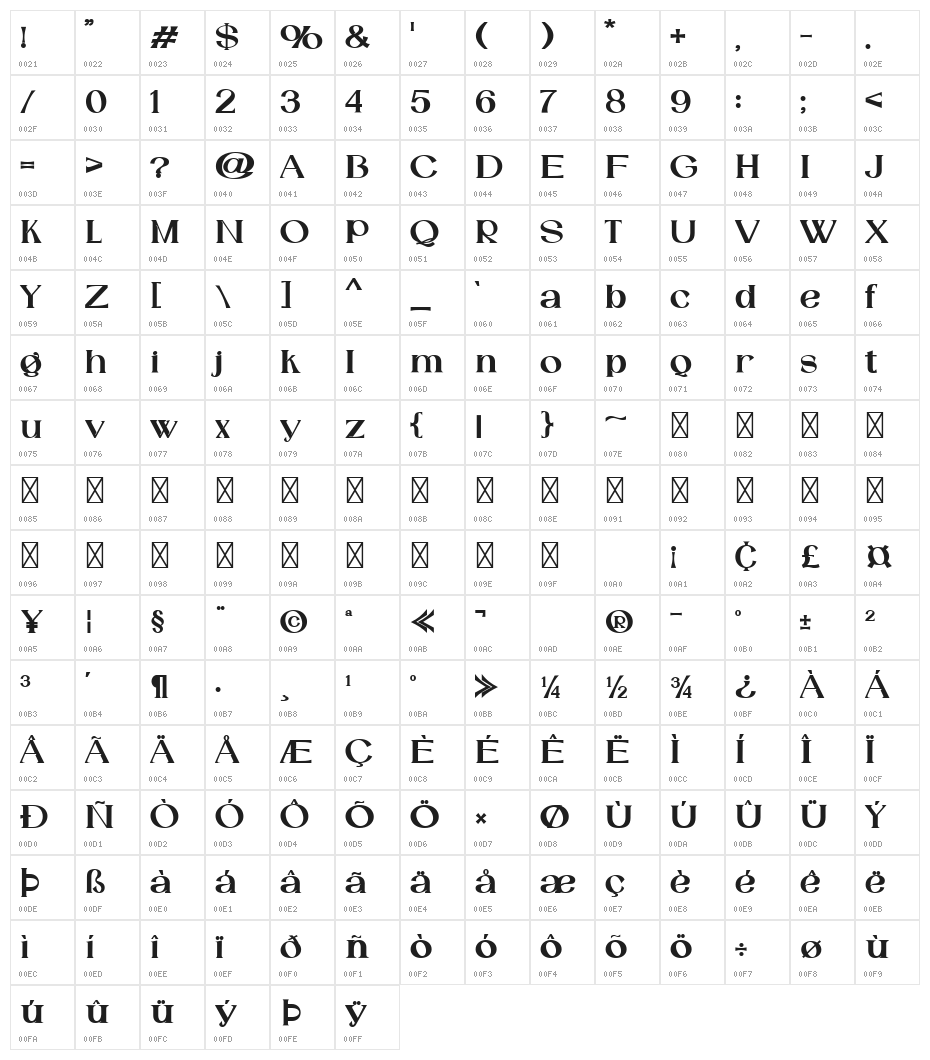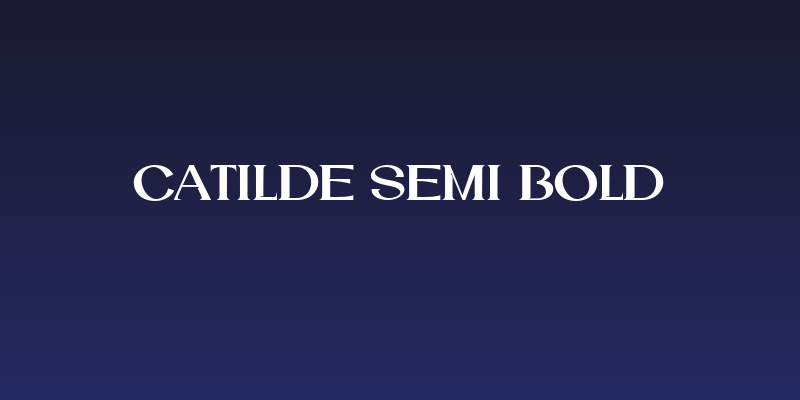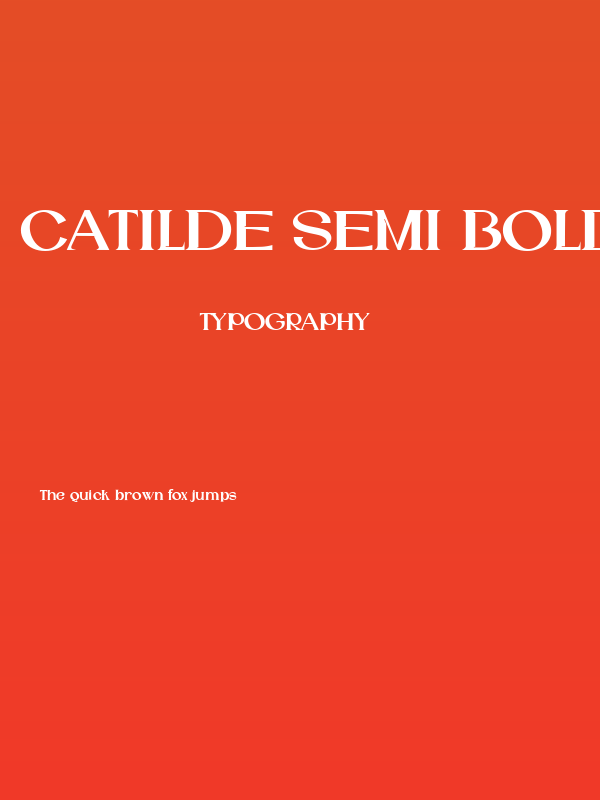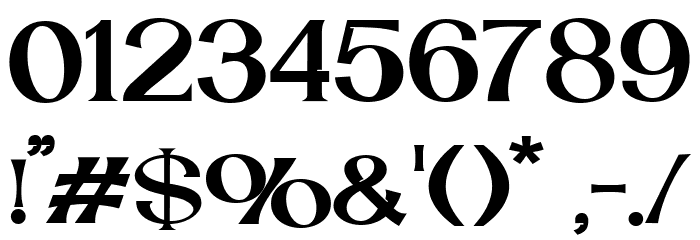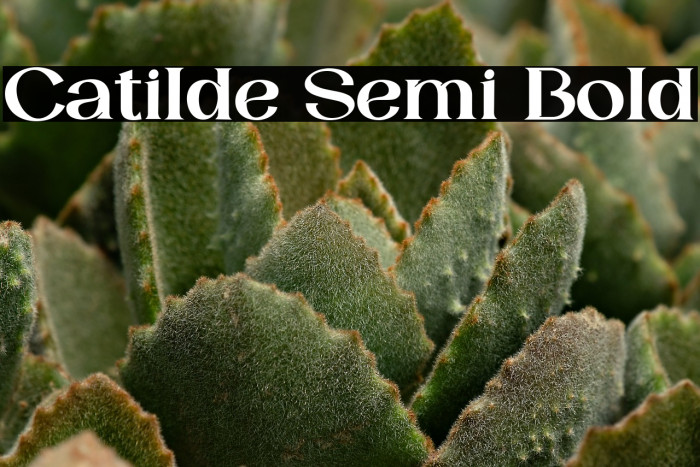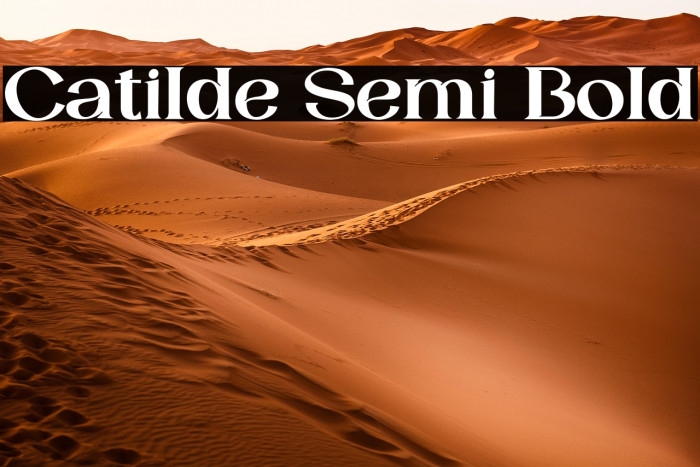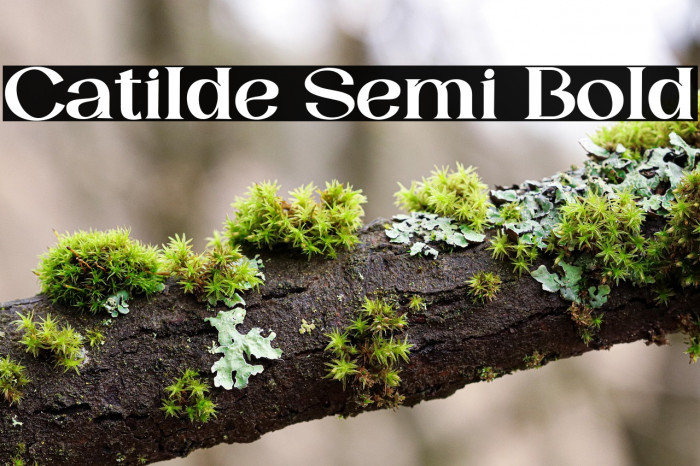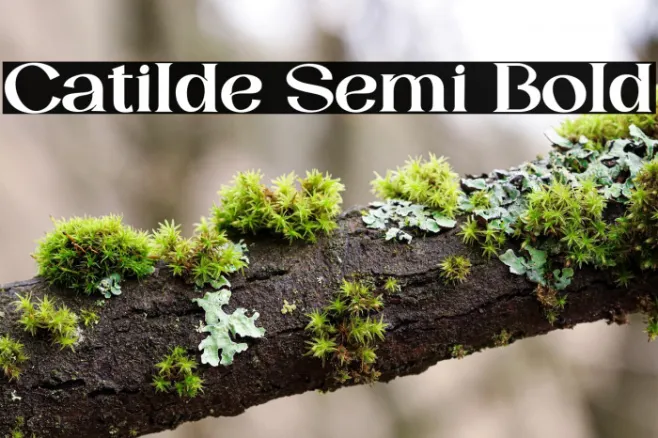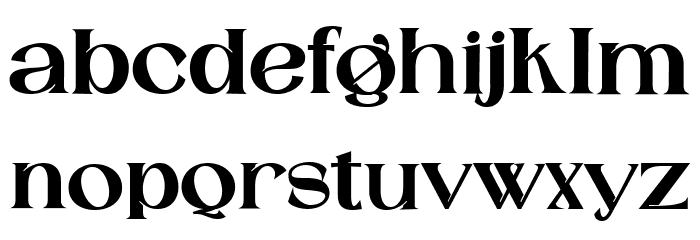
Catilde Semi Bold Font
Catilde Semi Bold Description
This font features a bold and striking serif design with a modern twist. The uppercase letters are characterized by sharp, angular serifs that give a sense of authority and elegance. The lowercase letters maintain a consistent style with slightly rounded edges, adding a touch of softness to the overall appearance. Numbers are clear and legible, with a uniform thickness that ensures readability. Special characters are thoughtfully designed to match the font's aesthetic, making it versatile for various uses. The font's semi-bold weight provides a strong presence without overwhelming the reader, making it suitable for both headlines and body text.
| Proposed Projects | Ideal for editorial design, branding, and advertising where a modern yet classic look is desired. |